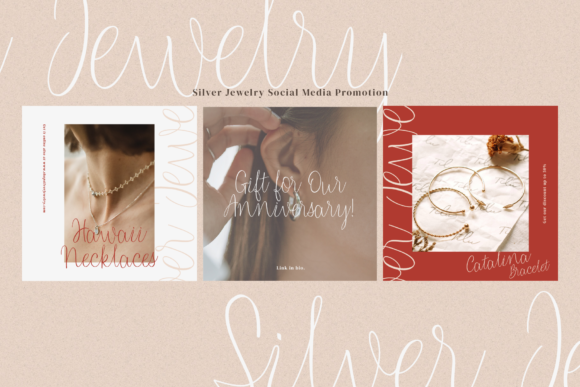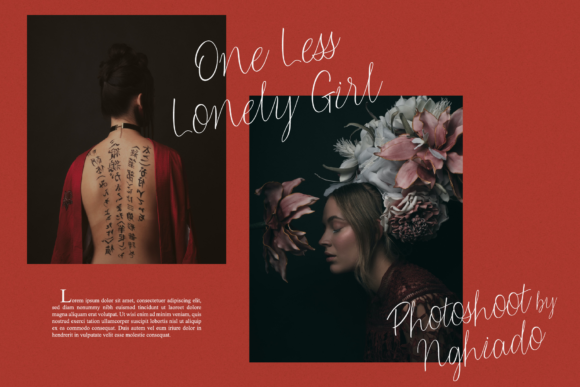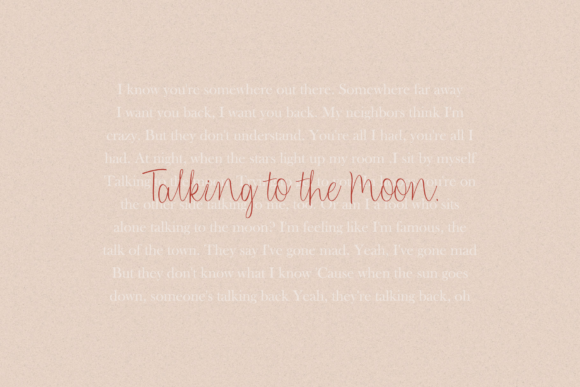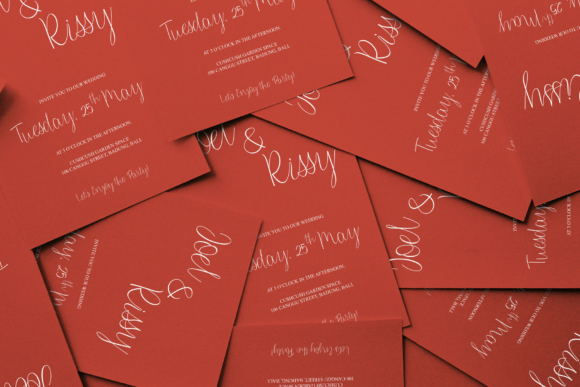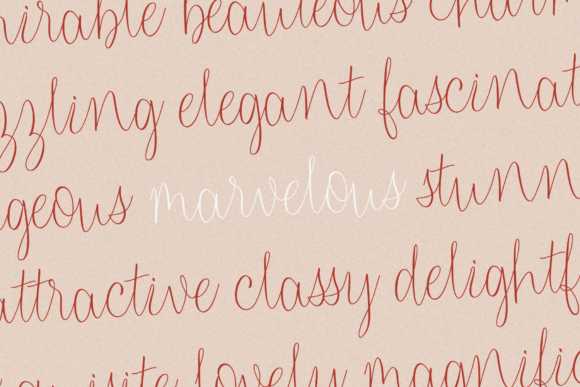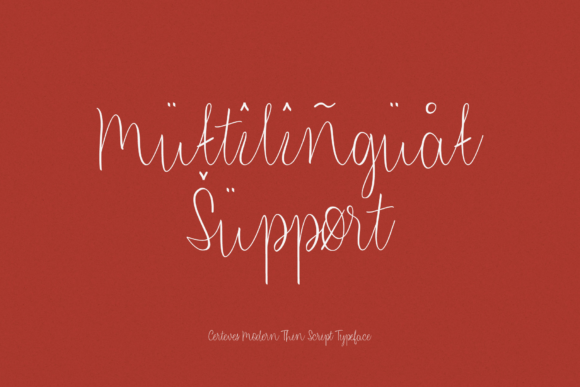
Certeves Font: Elevate Your Designs with Elegance and Flair
In the world of typography, a font can make or break a design. It’s the perfect blend of form and function, where aesthetics meet readability. For designers and crafters looking to add a touch of sophistication and whimsy to their projects, Certeves Font is an excellent choice. This delicate, elegant, and flowing handwritten font is designed to bring a wide range of creative ideas to life.
The Beauty of Certeves Font
Certeves Font stands out for its beautiful and well-balanced characters. Each letter is crafted with care, ensuring that the font flows smoothly and elegantly across any design. Whether you’re working on a branding project, a wedding invitation, or a DIY craft, Certeves Font adds a level of refinement and charm that’s hard to match.
One of the key features of Certeves Font is its versatility. It can seamlessly integrate into a wide pool of designs, from modern and minimalist to vintage and ornate. This adaptability makes it a valuable asset for designers who need a font that can keep up with their creative vision, no matter the direction.
Bringing Your Ideas to Life with Certeves
So, what makes Certeves Font the perfect addition to your design toolkit? The answer lies in its ability to elevate your projects. Whether you’re creating something as simple as a social media graphic or as complex as a brand identity, Certeves Font adds a touch of elegance and personality that can make your work stand out.
Imagine adding Certeves Font to:
- Wedding Invitations: Add a touch of romance and sophistication to your wedding invitations, making the moment even more special for the couple.
- Branding Projects: Use Certeves Font to create a unique and memorable brand identity that speaks to elegance and refinement.
- DIY Crafts: Whether you’re making cards, decorations, or personalized gifts, Certeves Font can add a handmade touch that’s both charming and distinctive.
- Digital Content: From blog headers to social media posts, Certeves Font can help you create engaging and visually appealing content that captures your audience’s attention.
Why Choose Certeves Font?
With so many fonts available, why choose Certeves? Here are a few compelling reasons:
- Uniqueness: Certeves Font offers a unique style that’s not commonly found, making it an excellent choice for projects that require a distinctive touch.
- Readability: Despite its elegant and flowing nature, Certeves Font remains highly readable, making it suitable for both headings and body text.
- Versatility: As mentioned earlier, Certeves Font can fit into a wide range of design themes and styles, making it a versatile addition to your font collection.
Certeves Font is more than just a typeface; it’s a design element that can transform your projects with its elegance and charm. Whether you’re a professional designer or a crafty DIY enthusiast, Certeves Font offers the versatility and beauty you need to bring your creative ideas to life. With its delicate and flowing script, well-balanced characters, and adaptability to various design themes, Certeves Font is an excellent addition to any design toolkit. So, why wait? Explore the possibilities with Certeves Font today and discover how it can elevate your designs to new heights.